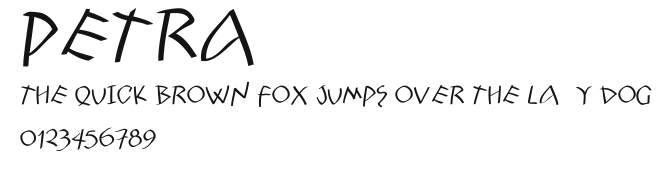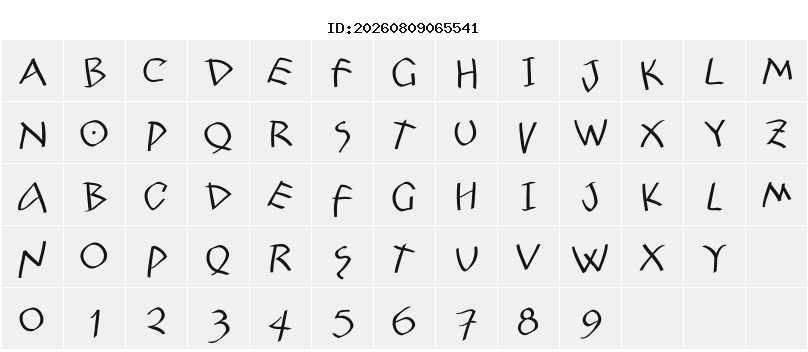
Petra Preview
• Font Name: Petra
• Font ID: Petra-Medium
• Full Font Name: Petra-Medium
• PostScript Name: Petra-Medium
• Character Count: 163
About Petra.ttf
Petra.ttf is a modern, elegant sans-serif font designed for ultimate readability and visual harmony. Perfect for branding, headlines, web design, and print materials.